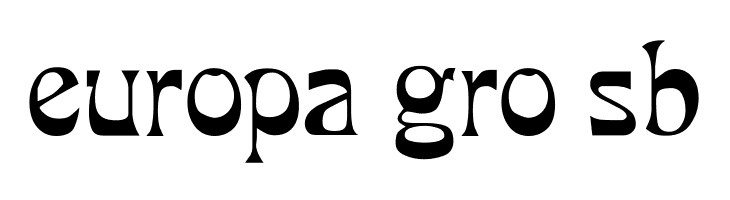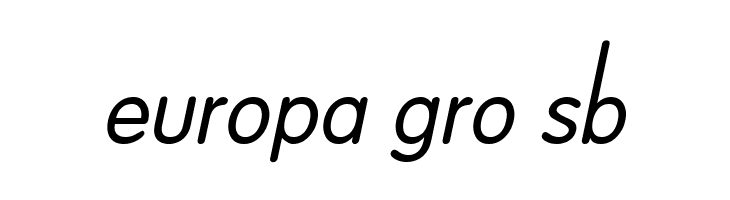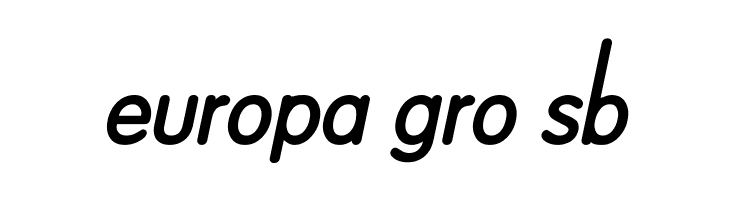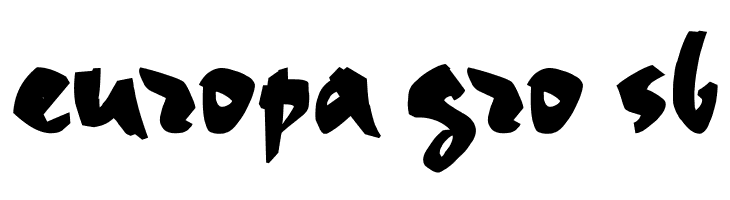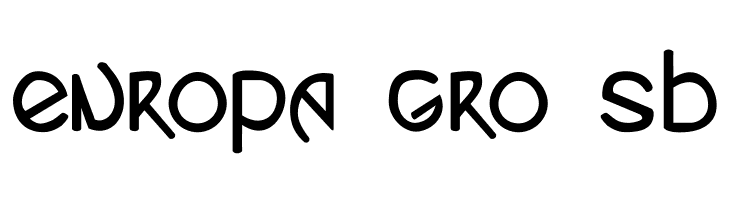
Dreamspeak Font
A modern, rounded sans-serif font with a clean and approachable design.
Dreamspeak Bold Font
A bold, rounded sans-serif font with a modern and friendly appearance.
DreamerOne Font
A playful and whimsical font with flowing, irregular strokes and dynamic characters.
DreamerOne Bold Font
A playful, handwritten-style font with bold, dynamic strokes.
Dreamspeak Bold Italic Font
DreamerOne Bold Italic Font
A bold, italic script font with dynamic and flowing letterforms.
Yes:Union Font
A bold, dynamic brush script font with expressive strokes and lively movement.
Dreamspeak Italic Font
A modern, italic sans-serif font with a sleek and dynamic style.
DreamerOne Italic Font
An elegant, cursive italic font with smooth curves and a sophisticated style.
Yes:TimeWord Font
A playful, modern font with rounded and angular elements, offering a distinctive flair.
Dreamcolor Font
A bold, geometric font with a strong, cohesive design ideal for impactful headlines.
Yes:SongOfSeven Font
A bold, decorative font with a modern and vintage blend, featuring angular strokes and elegant curves.
Yes:CityOfAngels Font
A bold, geometric font with sharp angles and a modern aesthetic.